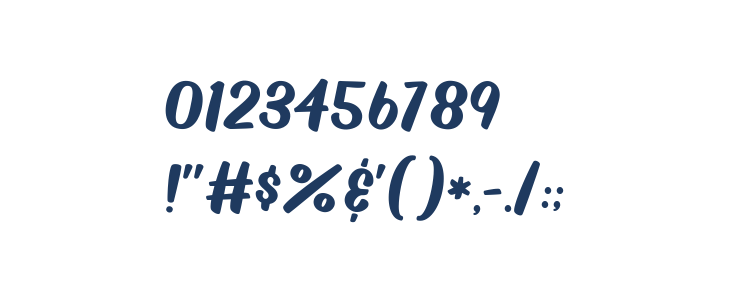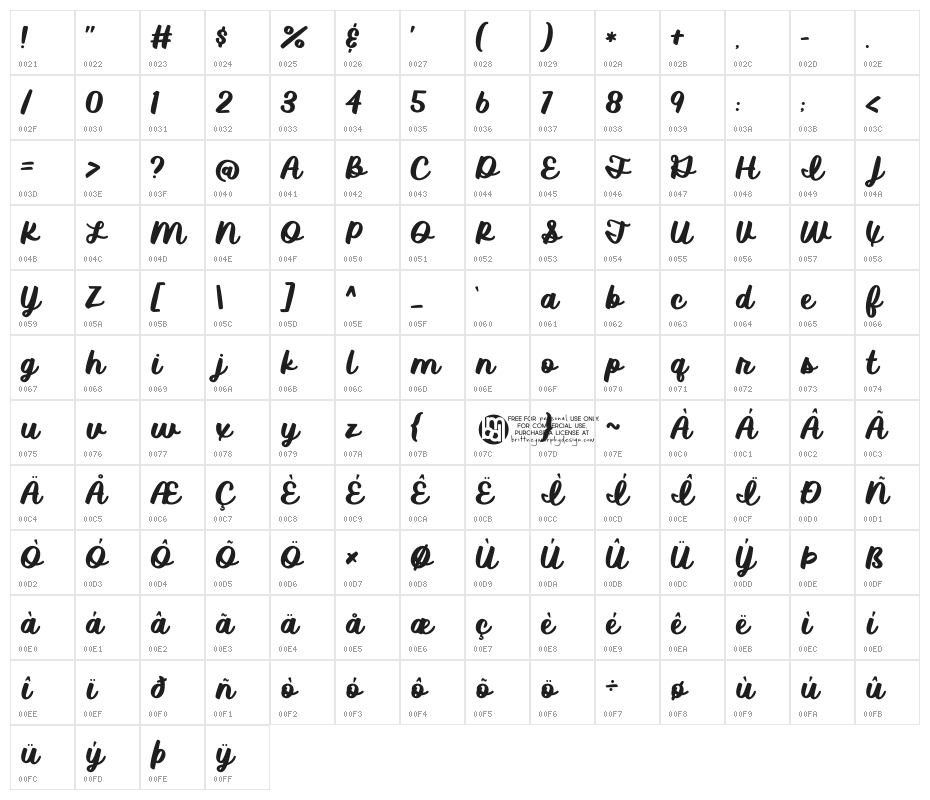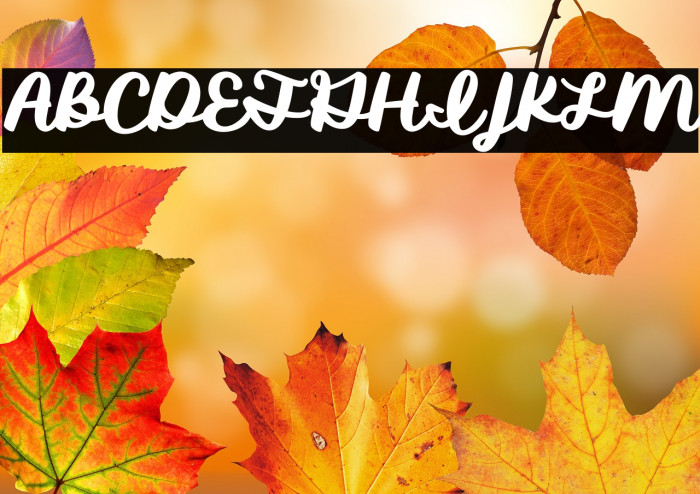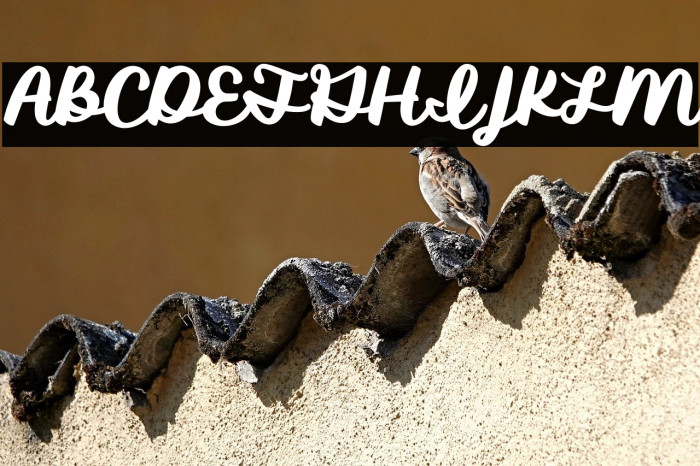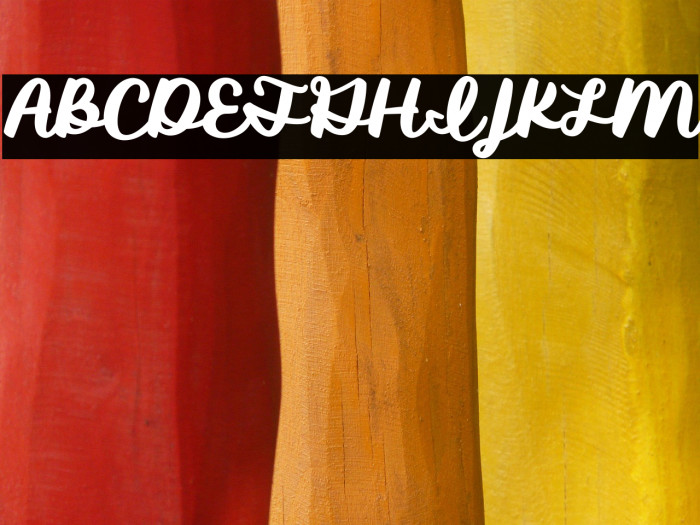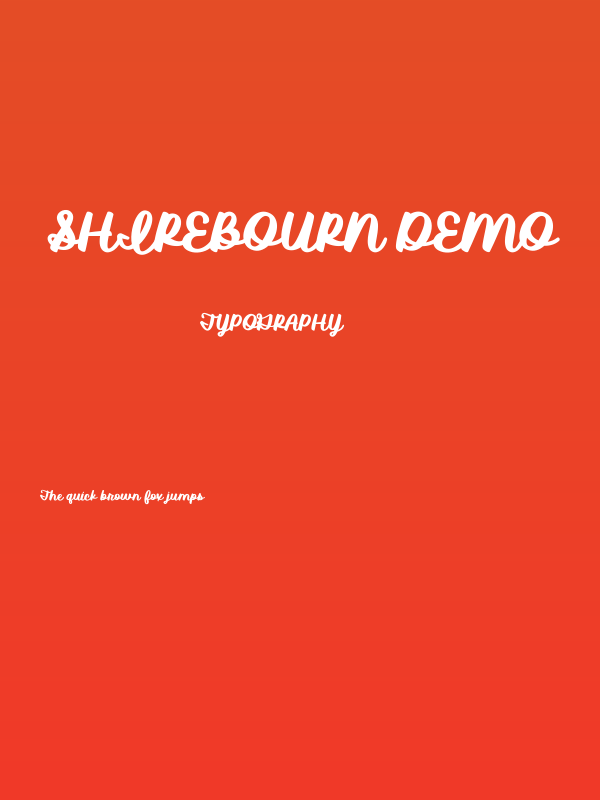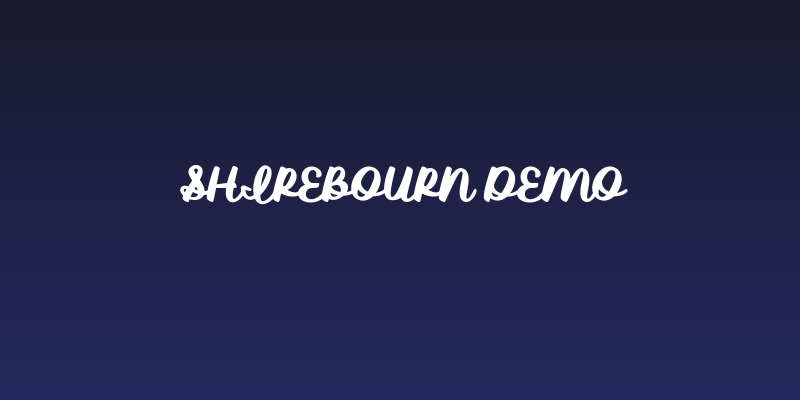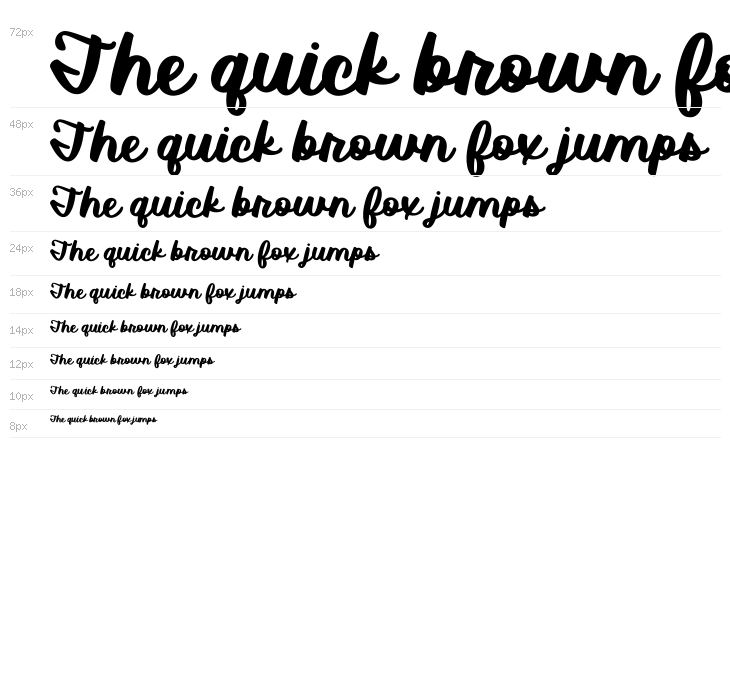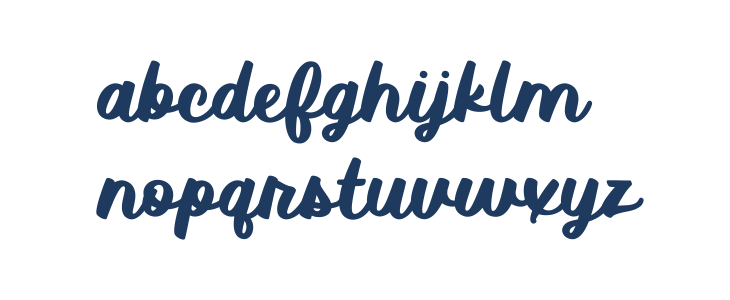
Shirebourn Demo Font
Shirebourn Demo Description
This font features a bold and flowing script style, characterized by its smooth, connected letters that mimic the fluidity of handwriting. The uppercase letters are slightly more structured, providing a nice contrast to the more relaxed lowercase letters. Numbers and special characters maintain the same flowing aesthetic, ensuring consistency across all text. The font's bold weight and medium contrast in stroke thickness make it highly legible while retaining an artistic flair. Its playful yet elegant appearance makes it suitable for a variety of creative applications.
| Proposed Projects | Ideal for wedding invitations, greeting cards, branding projects, and social media graphics. |